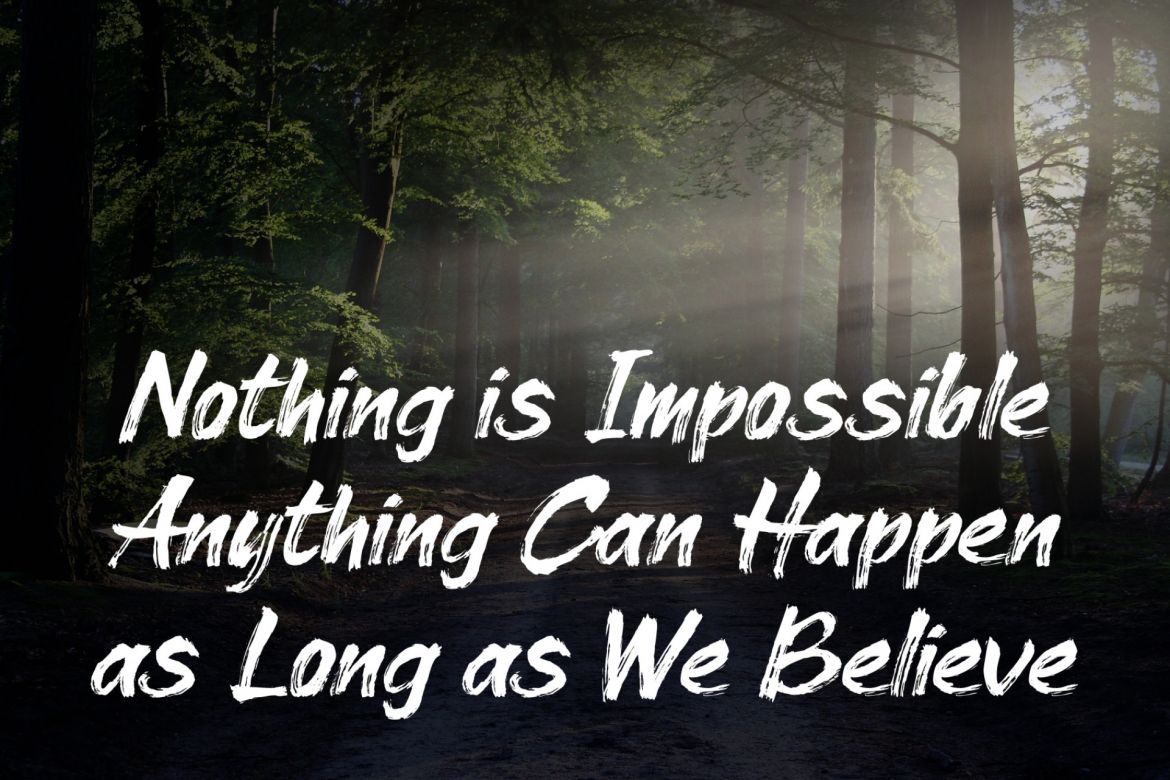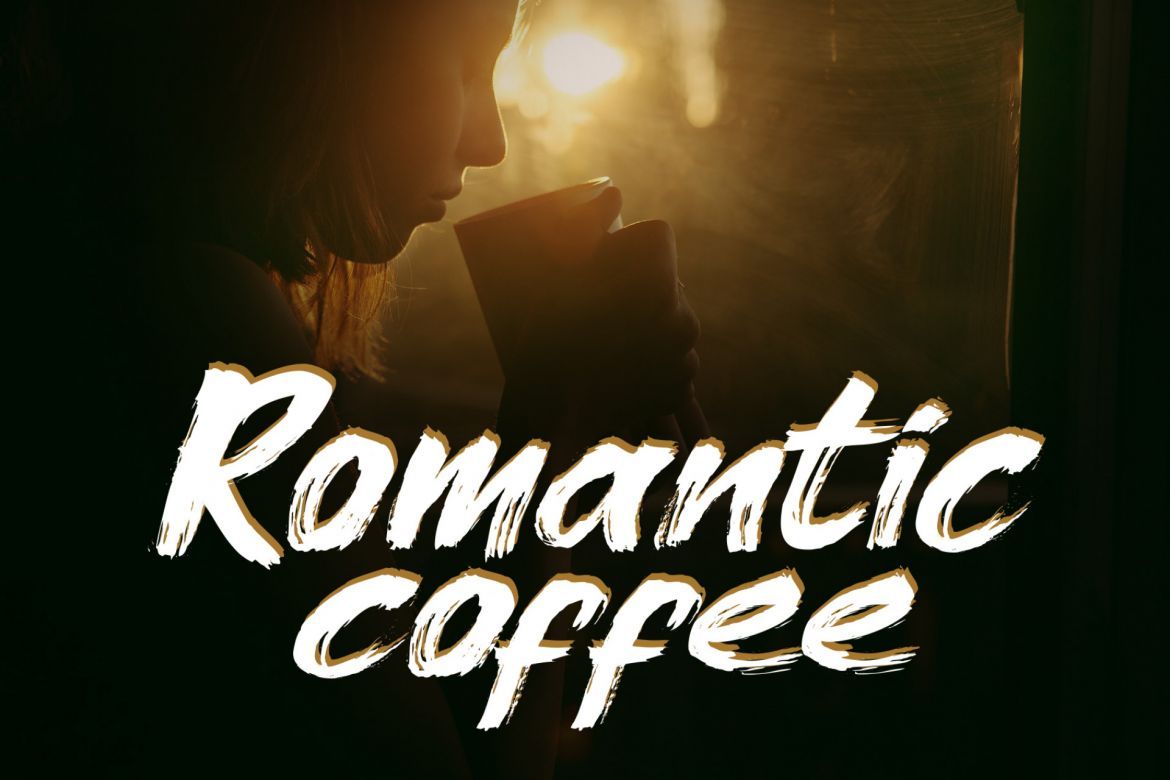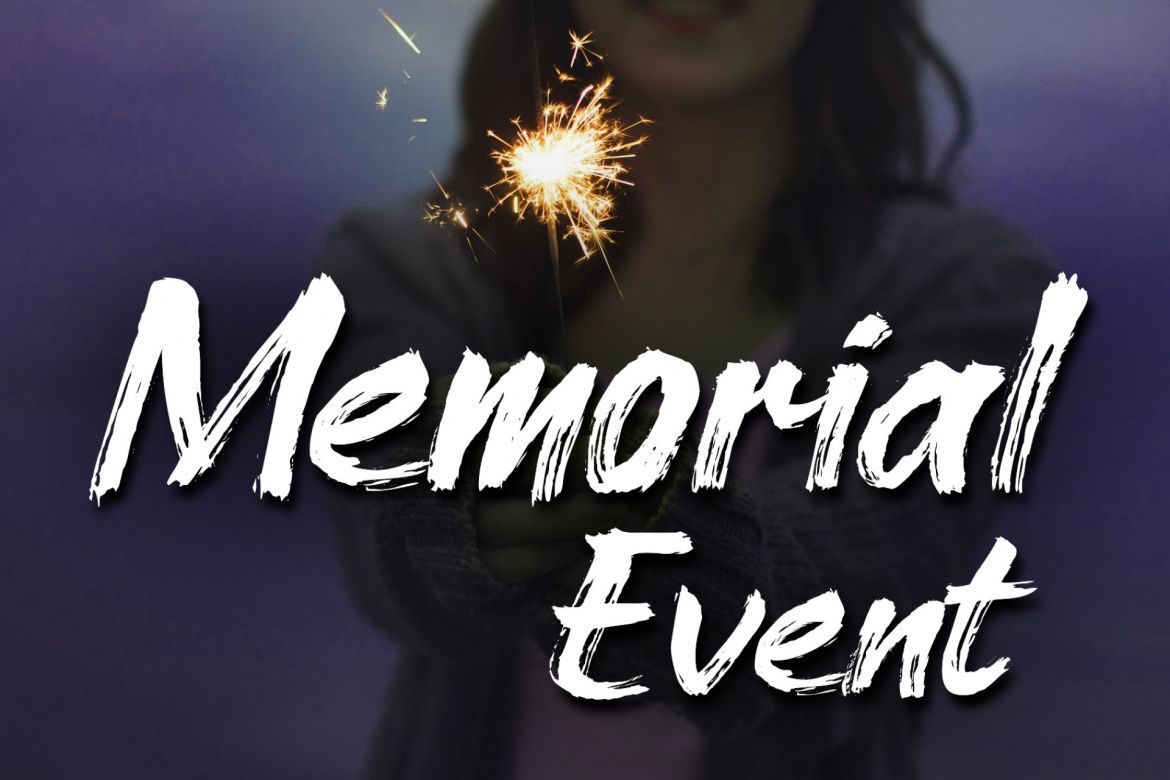
Cleopharta Brush Stroke Font
Cleopharta font is a smooth brush handwritten font with a wild feel. Get inspired by its spontaneous feel!
• brush stroke handwriting font